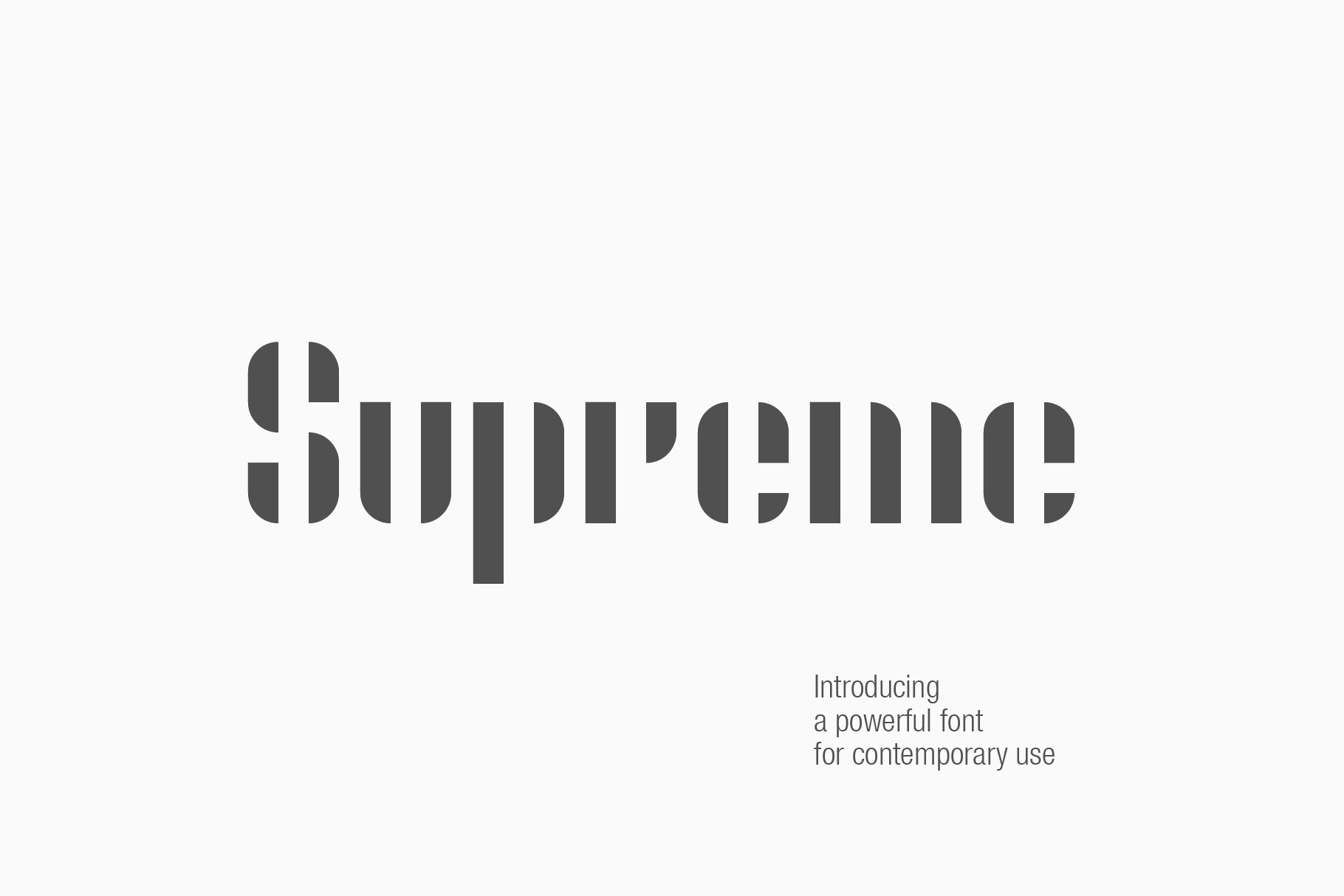
Supreme | A Clean Contemporary Font
Supreme is a gorgeous sans-serif typeface that is both contemporary and inherently modern. Use it as an elegant solution for your next magazine layout, or choose Supreme for any graphics that require a sleek look. Supreme is based on stencil letterforms for publishing and display graphics, so you can give your text a classic, elegant feel with Supreme's clean, negative-space letters.
- Uppercase Letters
- Lowercase Letters
- A handful of special characters